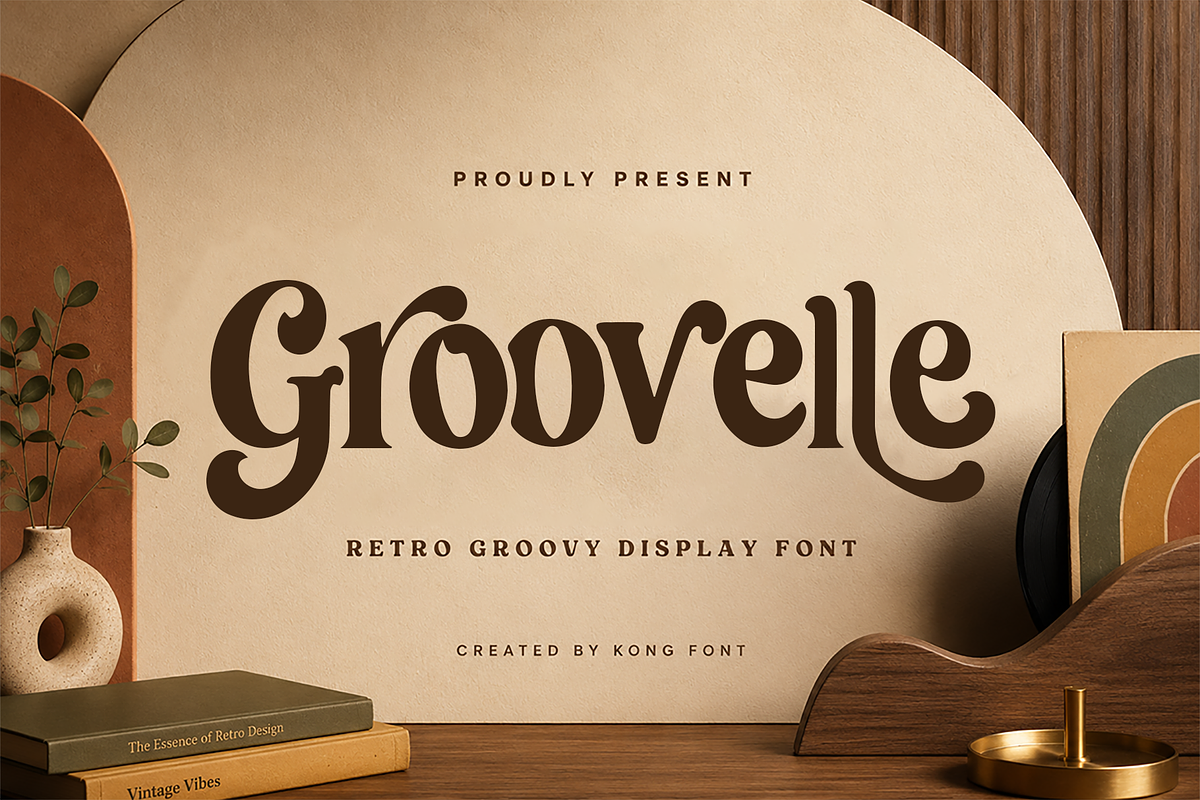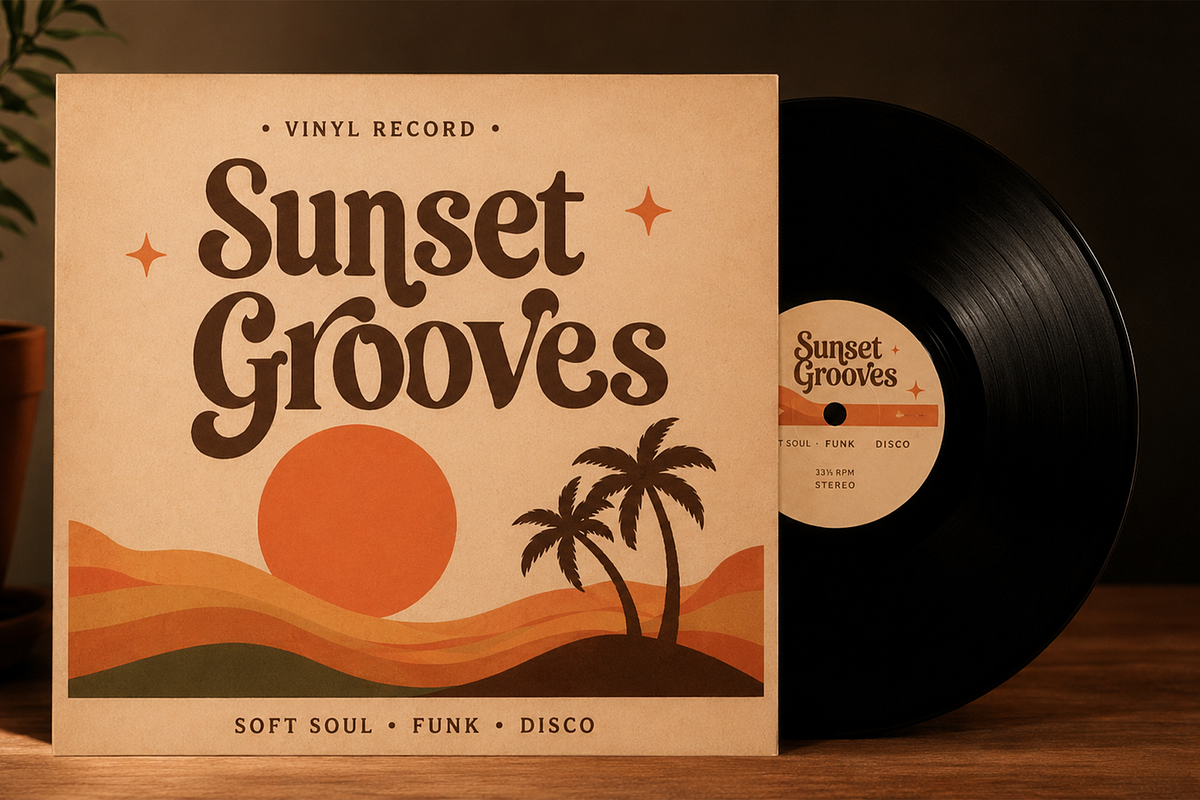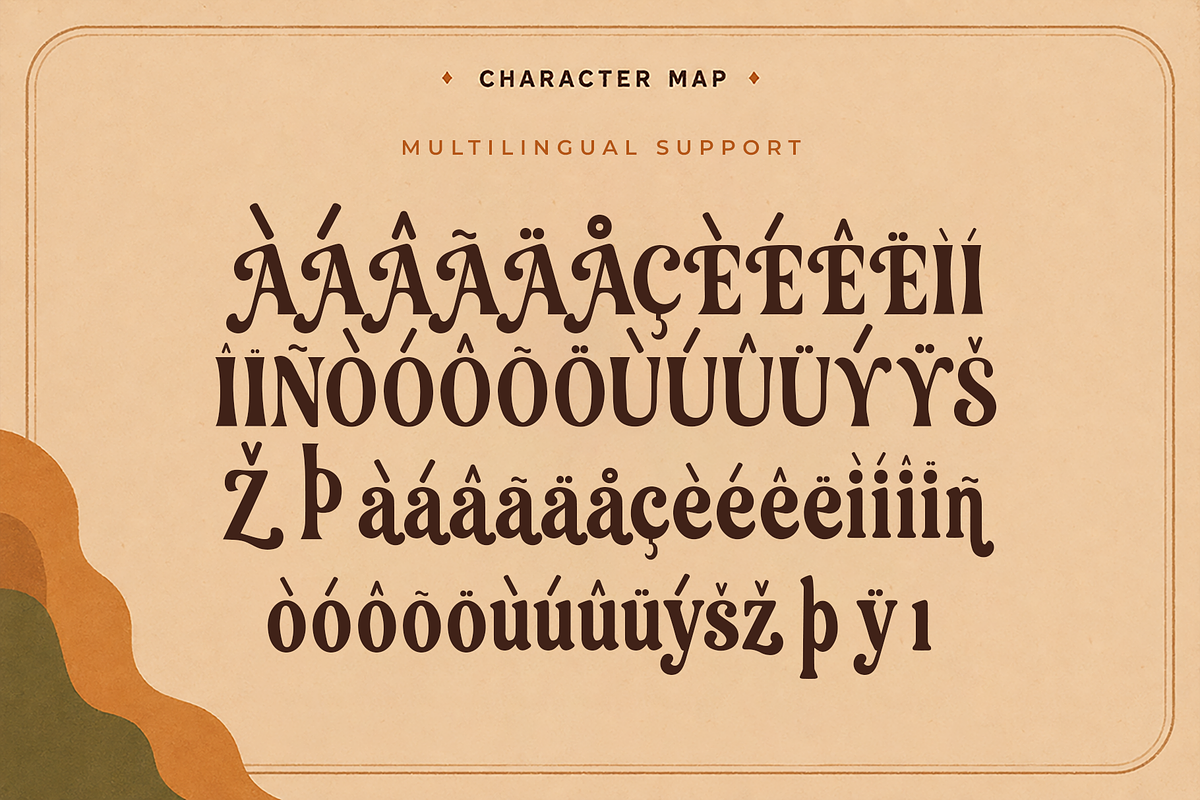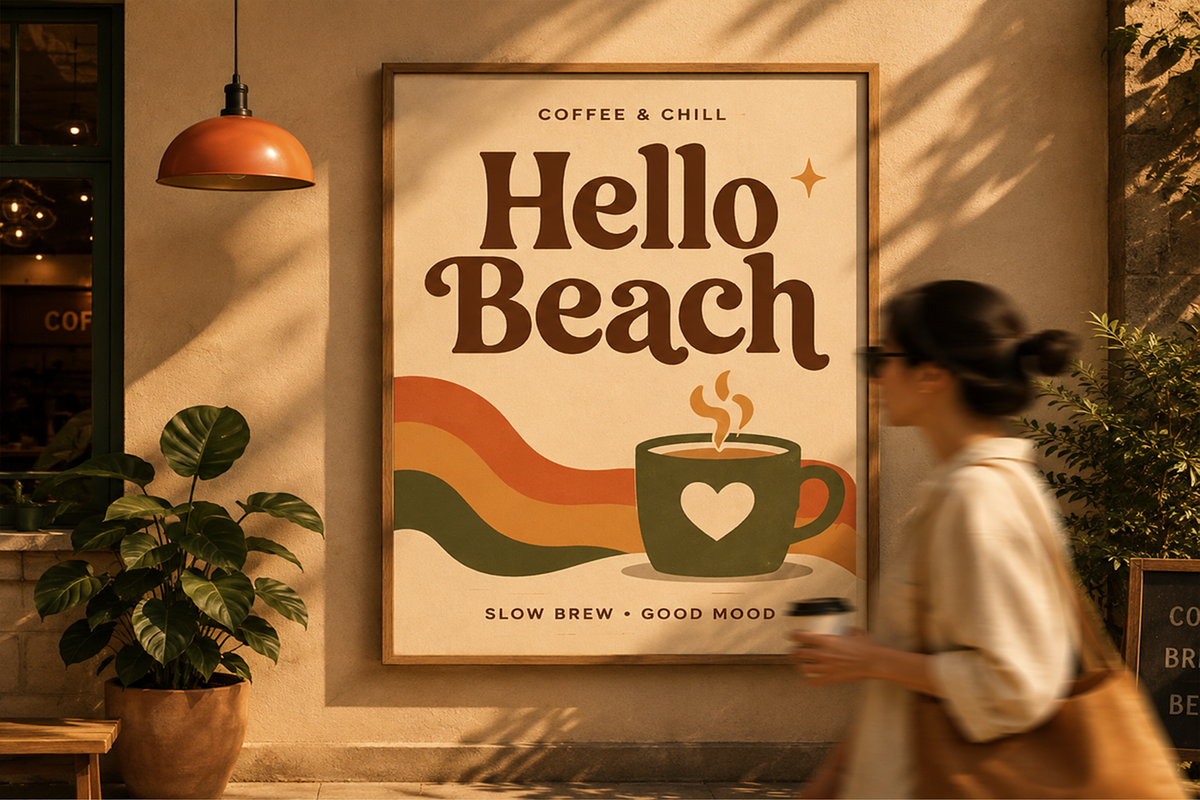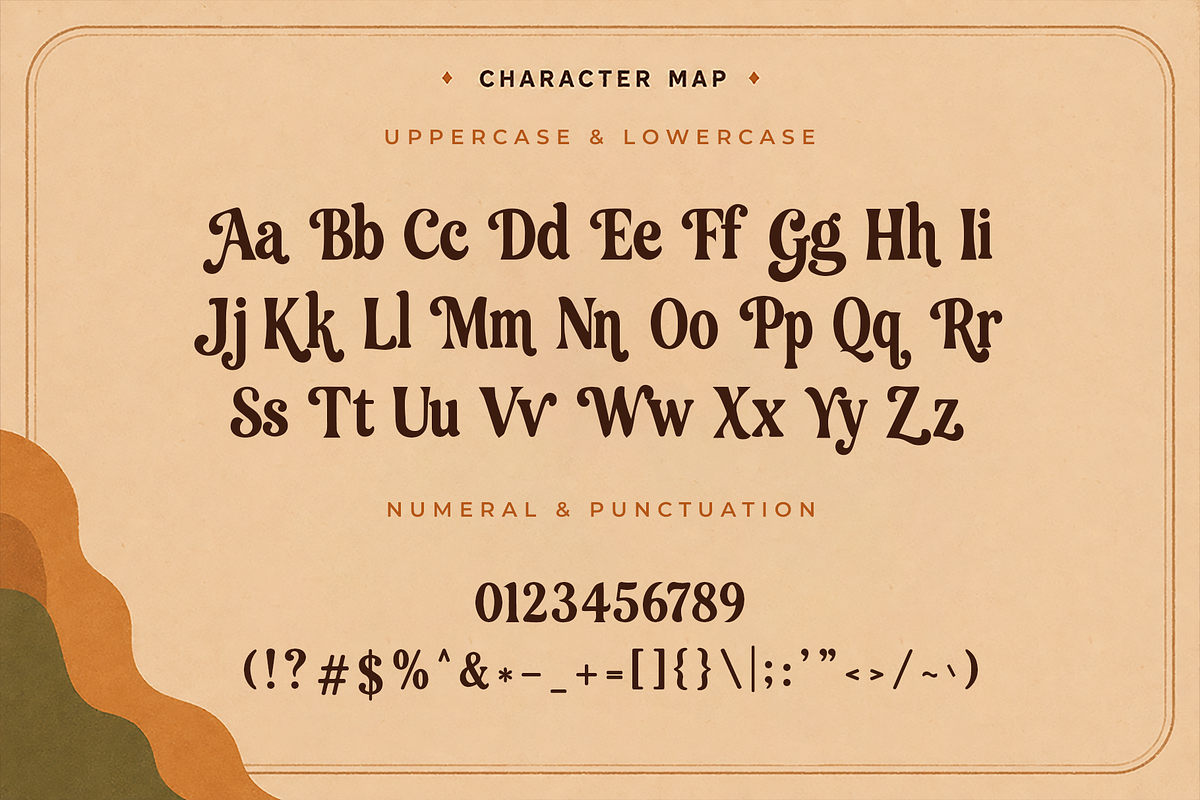
Groovelle - Retro Groovy DisplayFont
Groovelle - Retro Groovy Display Font
Meet "Groovelle," a retro groovy display font inspired by the expressive typography of the 1960s and 1970s. Featuring flowing curves, soft terminals, and distinctive vintage proportions, Groovelle brings a warm, stylish, and nostalgic personality to every composition.
Groovelle works especially well for music projects, vintage-inspired brands, cafés, boutiques, creative studios, festival graphics, apparel, editorial layouts, and retro advertising. Its expressive shapes create a strong visual identity while maintaining a smooth and approachable character.